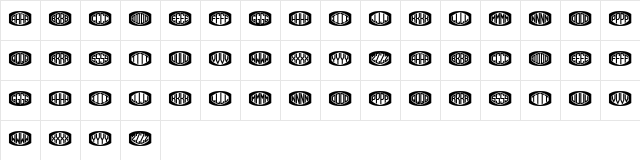
Bulged Monogram Flat Regular
Design Context for Bulged Monogram Flat Typeface
Bulged Monogram Flat brings the precise, column-aligned rhythm of monospaced typography to designs that value technical clarity and systematic order.
A natural fit for code editors, technical documentation, developer-focused branding, and terminal-inspired UI.
Pro Tip: Pair Bulged Monogram Flat with a proportional sans for UI contexts where code-style labels and regular body copy need to coexist.